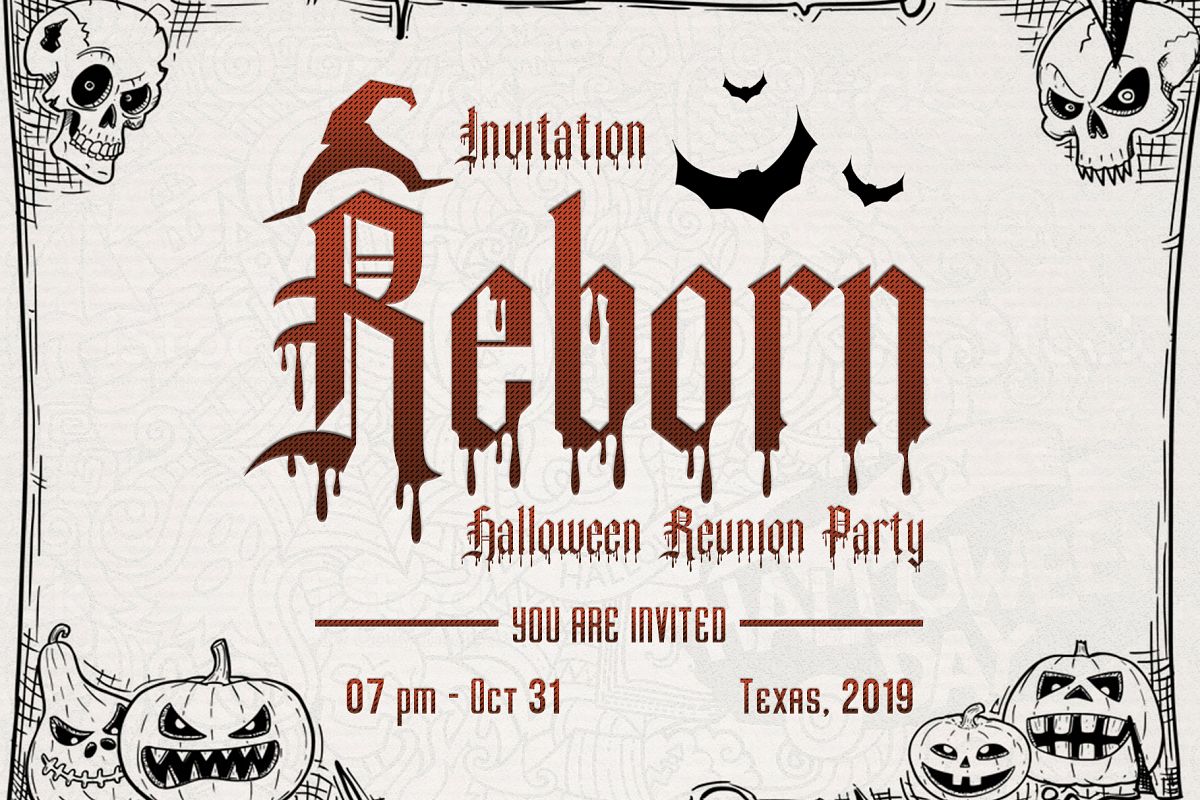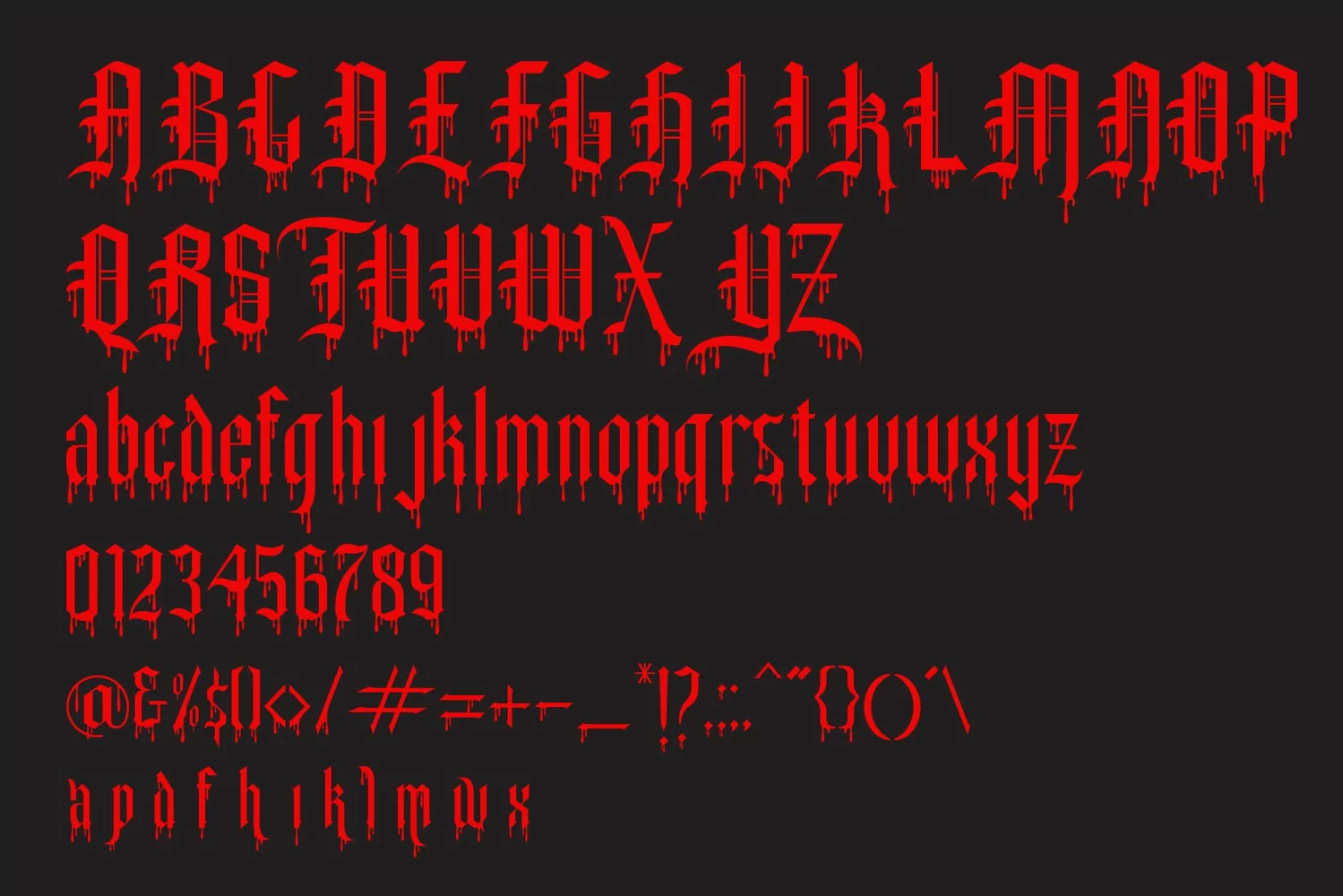
-- Horror / Strong / Decorative --Slayer Creeper is a sans font family and sophisticated sans serif. Inspired by a retro surfing poster and i try to combine it with a modern concept. it's perfect for you to show your design or product in professional way.
USESlayer Creeper works great in any branding, logos, magazines, films, poster, flyer, sign board.